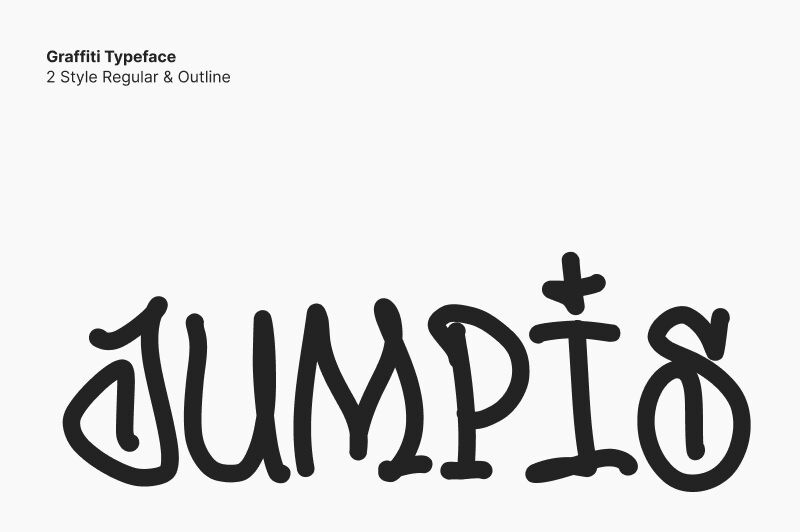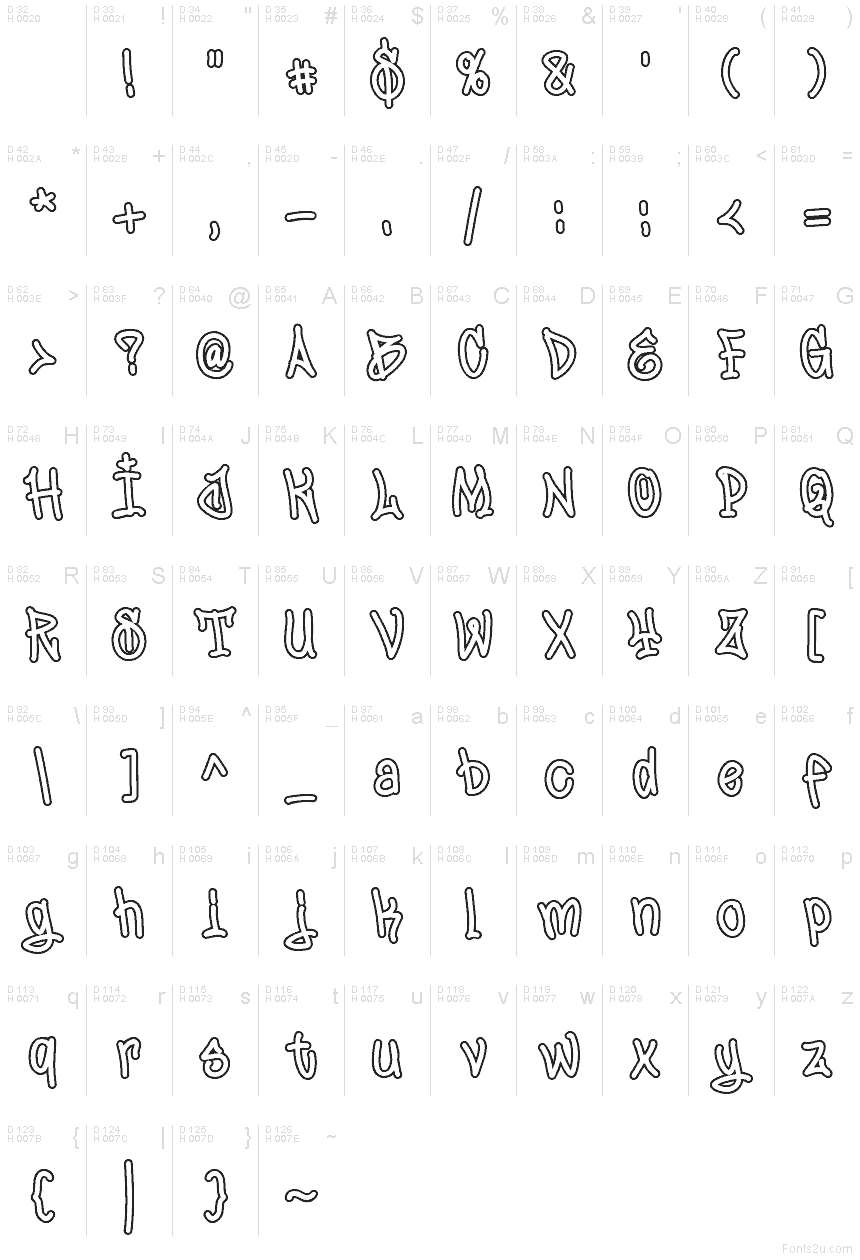
Jumpis Graffiti Outline
Jumpis Graffiti Outline font by Fitrah Type is a free outlined graffiti typeface. Part of the Jumpis Graffiti family, it sketches each letter with a loose, bubbly contour that feels hand‑inked—like fresh marker lines with a playful wobble. The airy interiors invite color fills, textures, or photos, so your headline can pop without getting heavy.
Using Jumpis Graffiti Outline, you can punch up streetwear logos, sticker packs, kids’ party posters, DIY zines, skate shop signage, YouTube thumbnails, and bold merch tags. The roomy spacing keeps words readable at large sizes while still looking mischievous. Pair this free font with a clean geometric sans for captions and keep contrast by setting Jumpis big and bright.